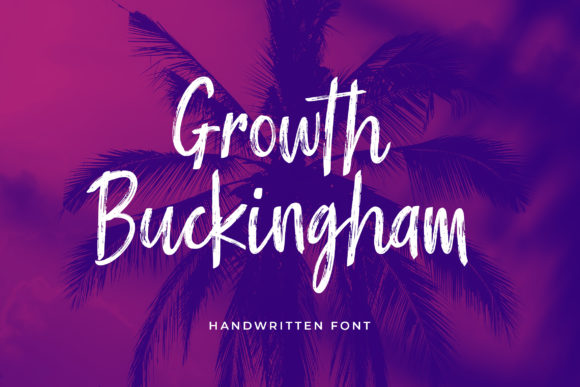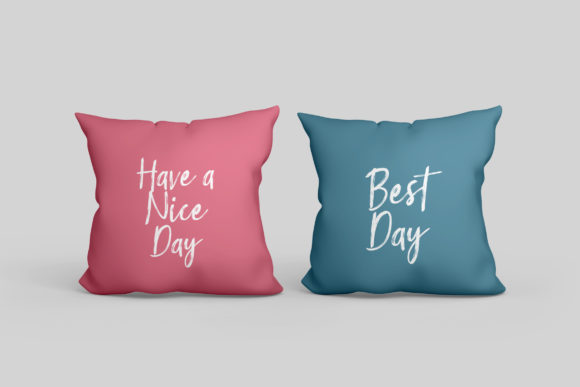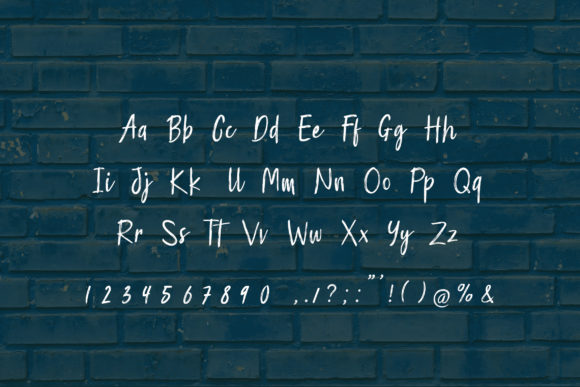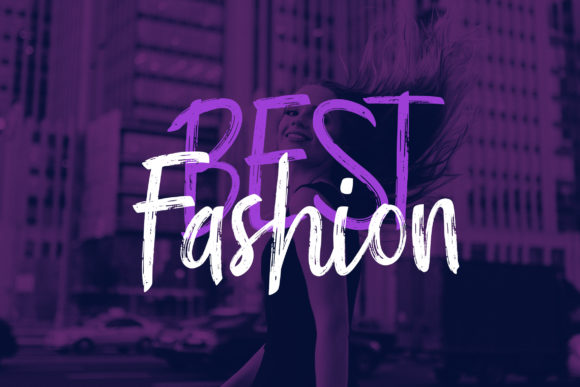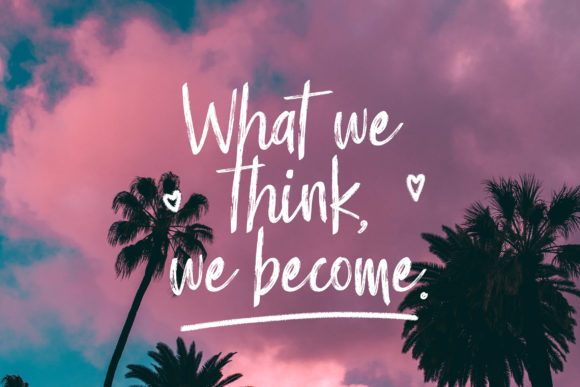
Growth Buckingham Font
About Growth Buckingham Font
Growth Buckingham is modern brushed handwritten font. It is defined by smooth curves and is perfect for fashion branding or editorial designs. Add it confidently to your projects, and you will love the results.